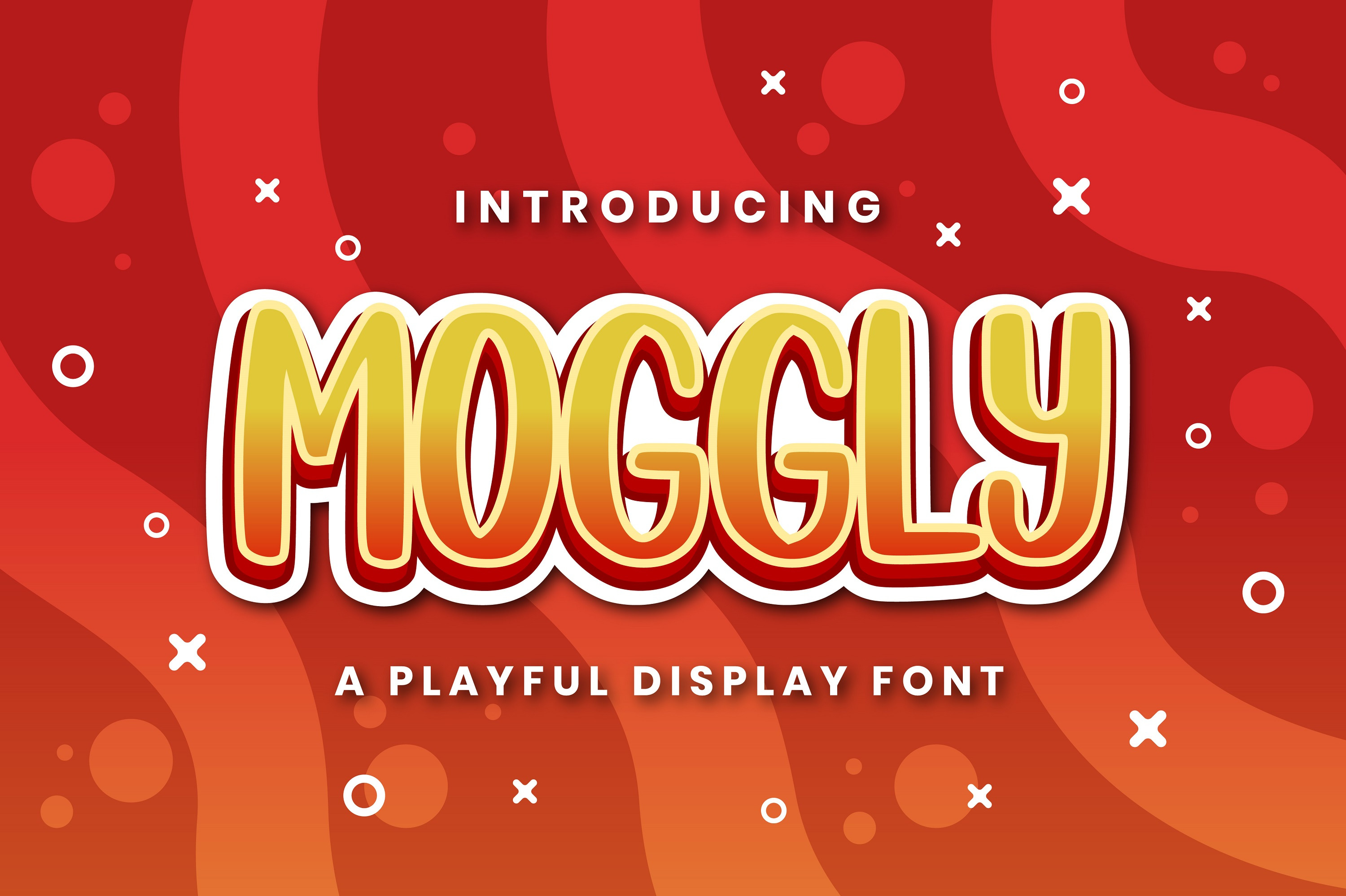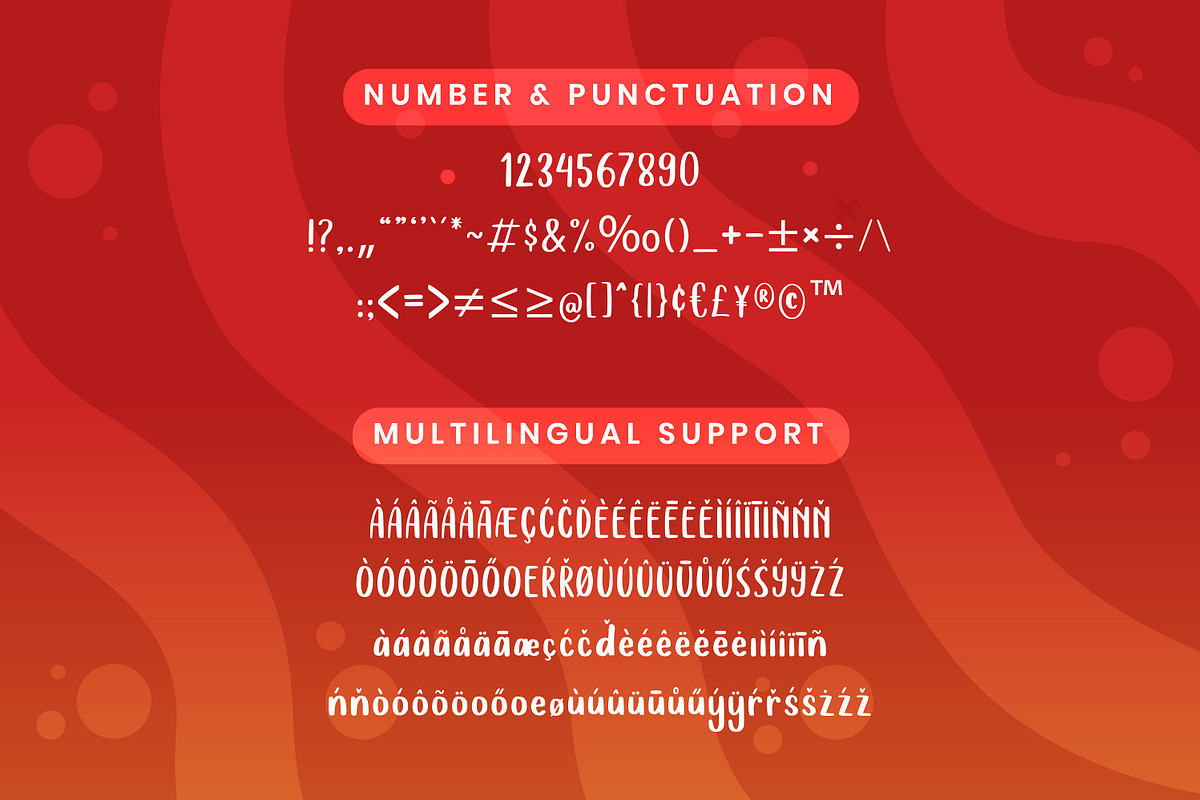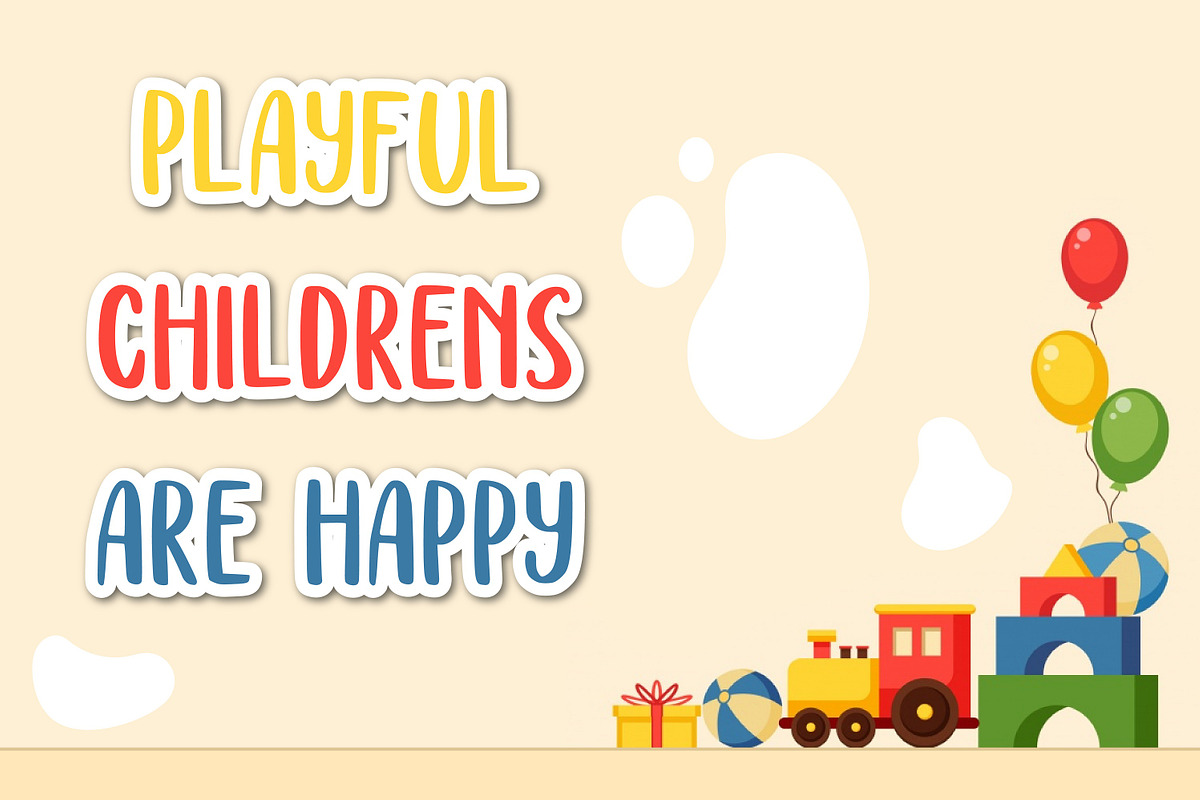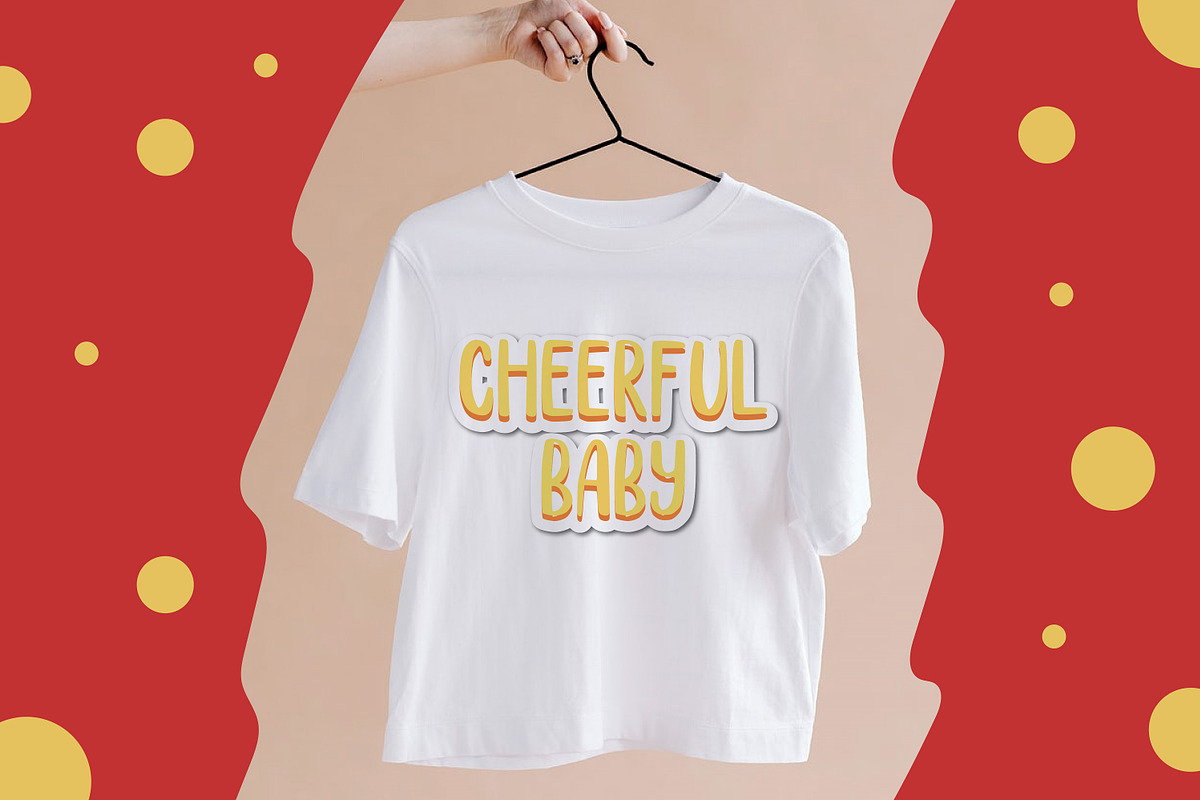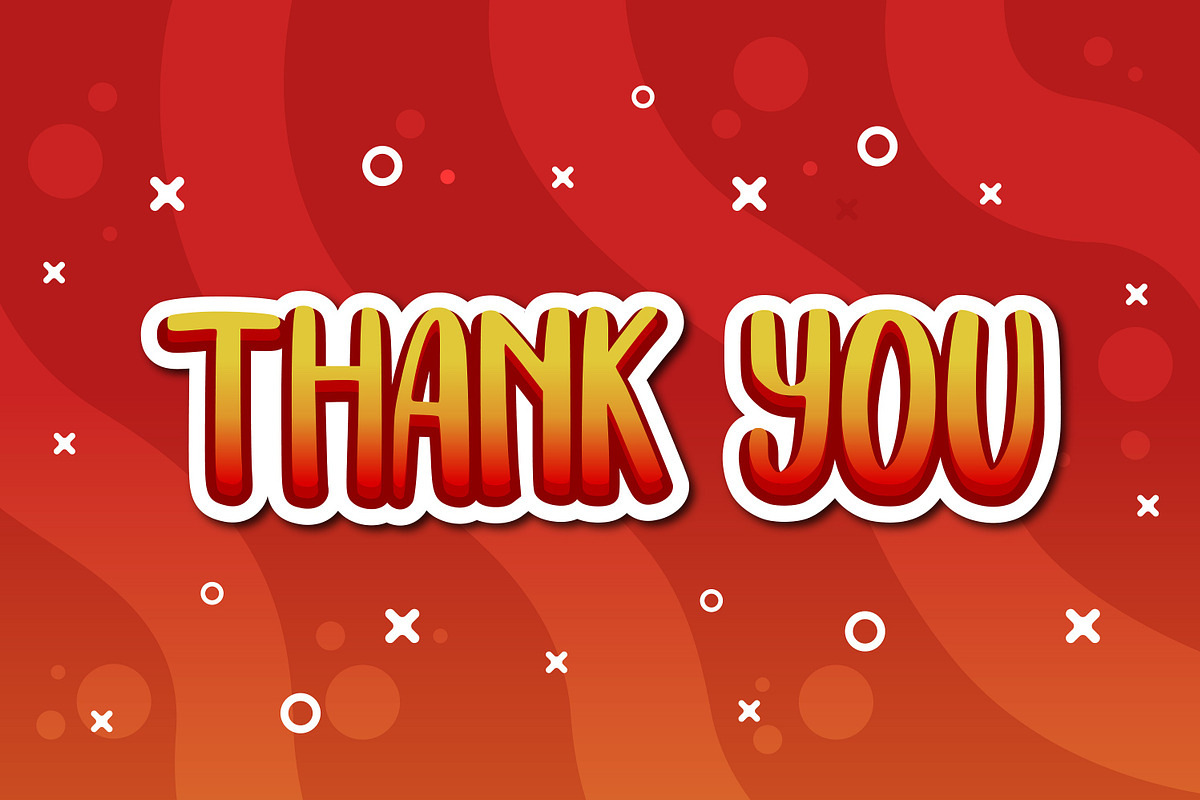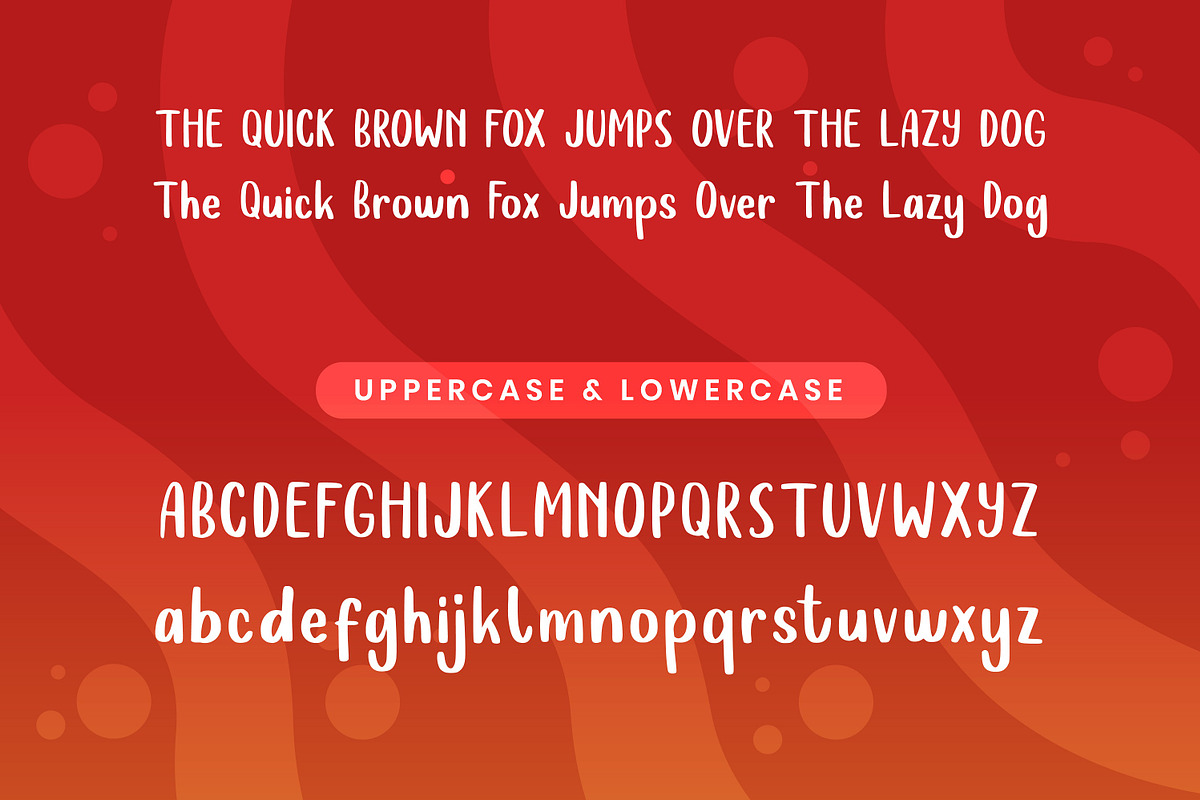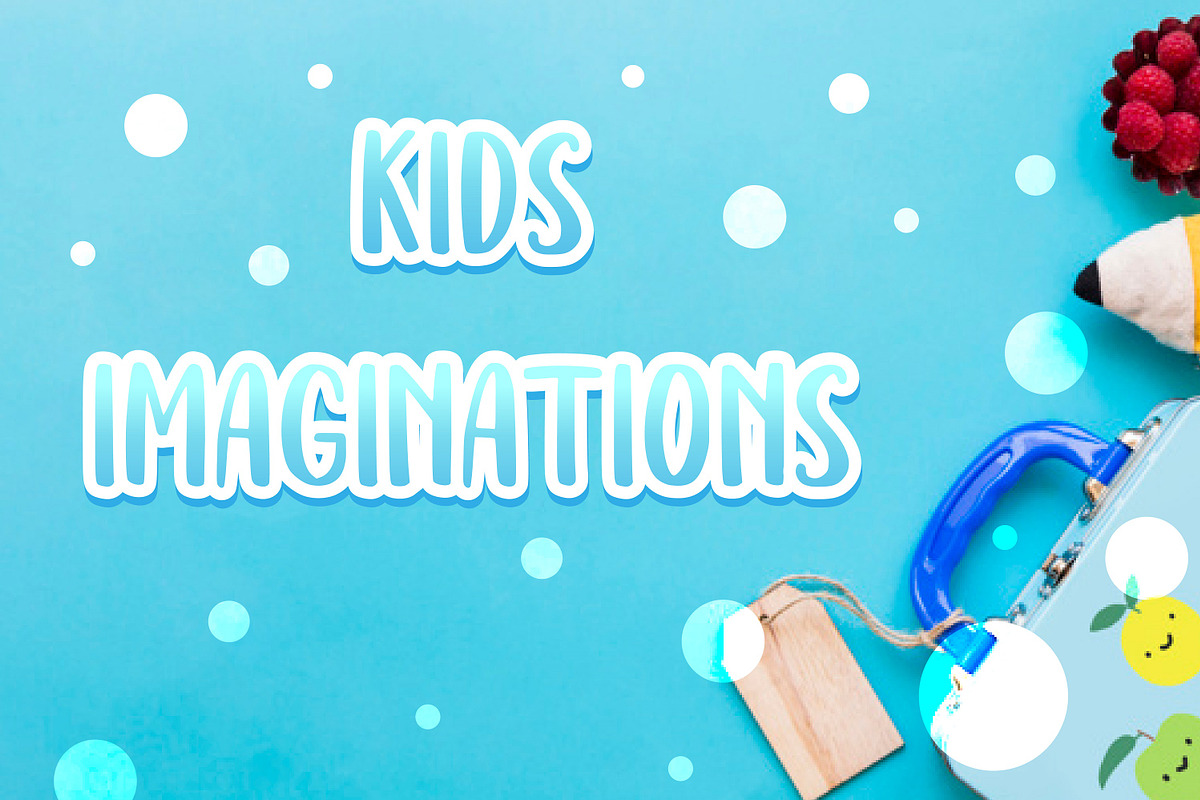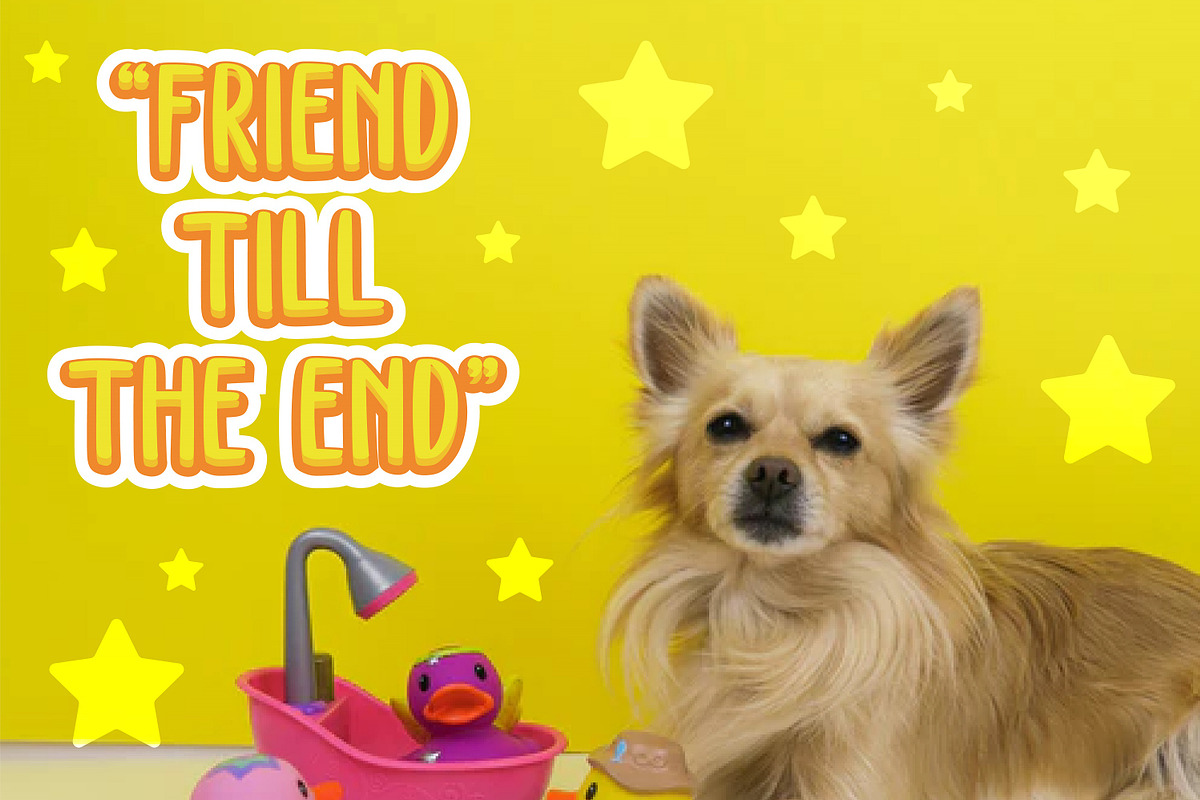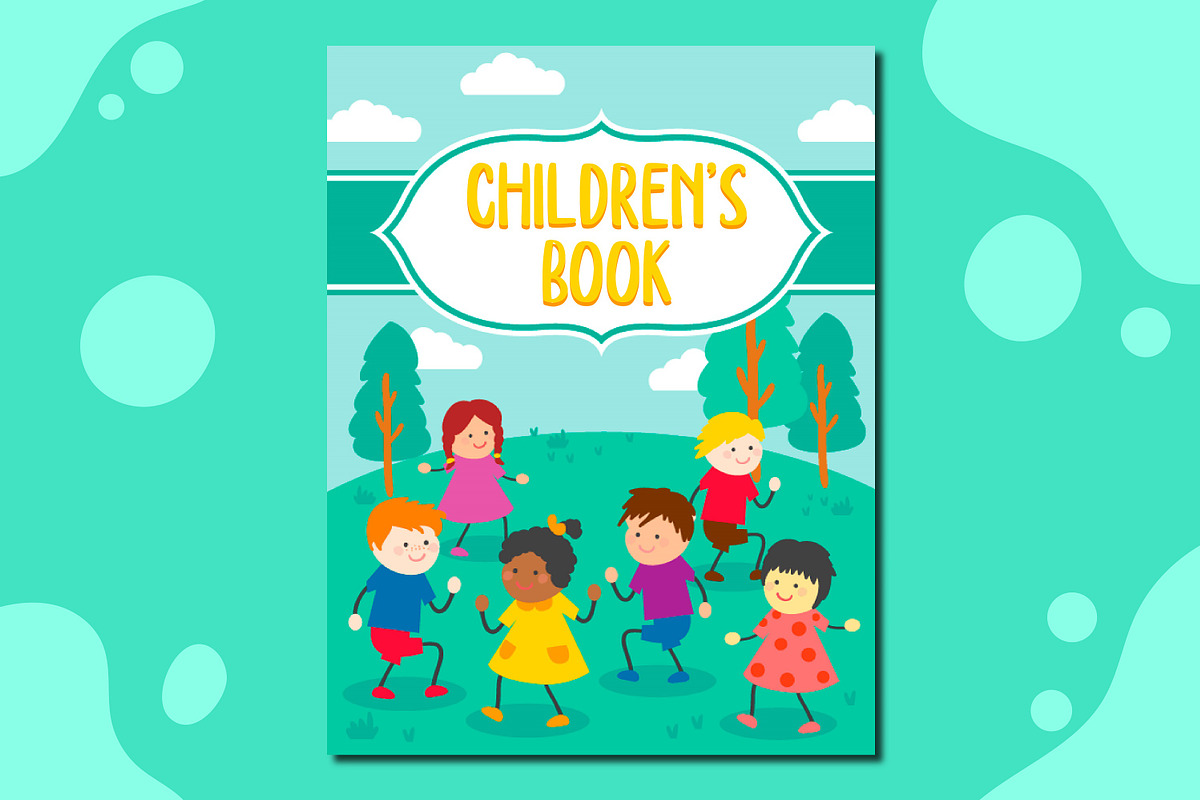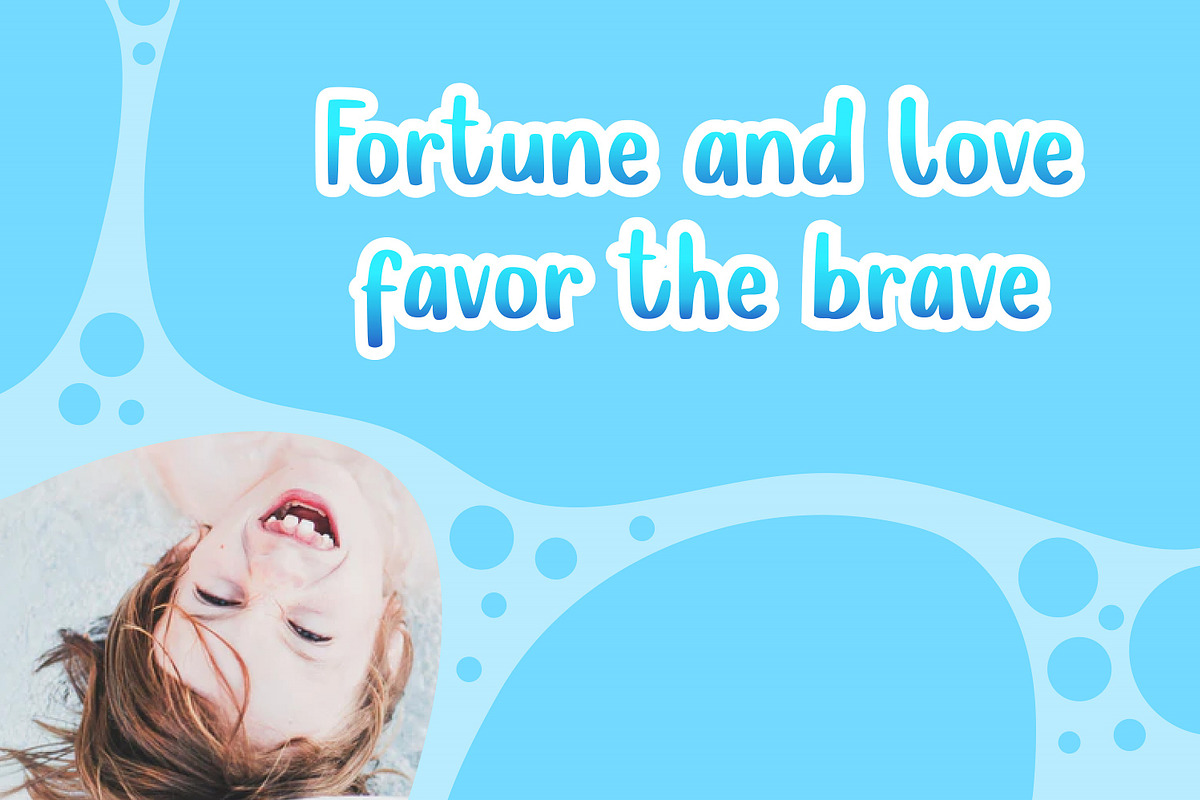
Moggly - Cute Quirky Font
Introducing Moggly - A Cute Quirky Font
Moggly is a fun and quirky display font. It will be a hit for each of your children or school projects! Add this beautiful display font to each of your creative ideas and notice how it makes them stand out!